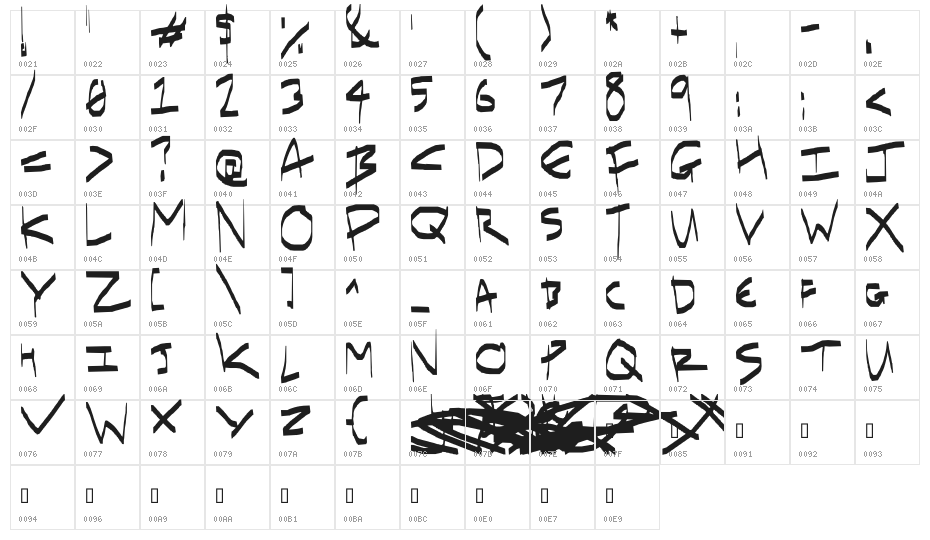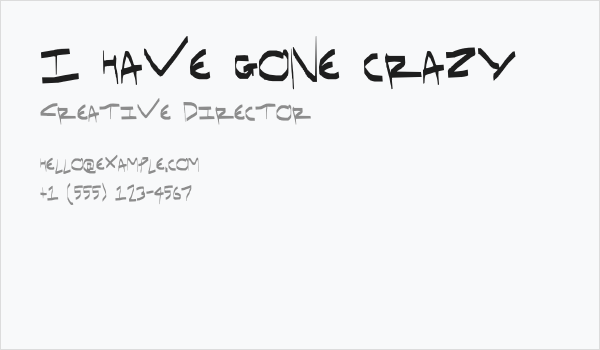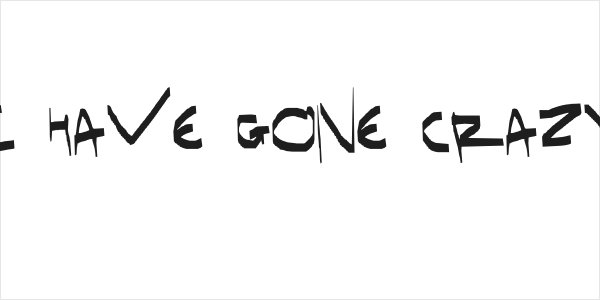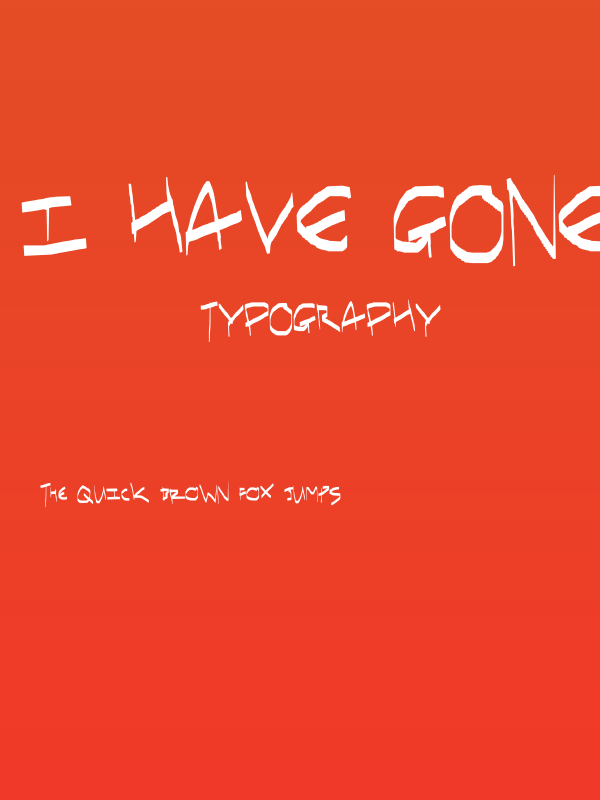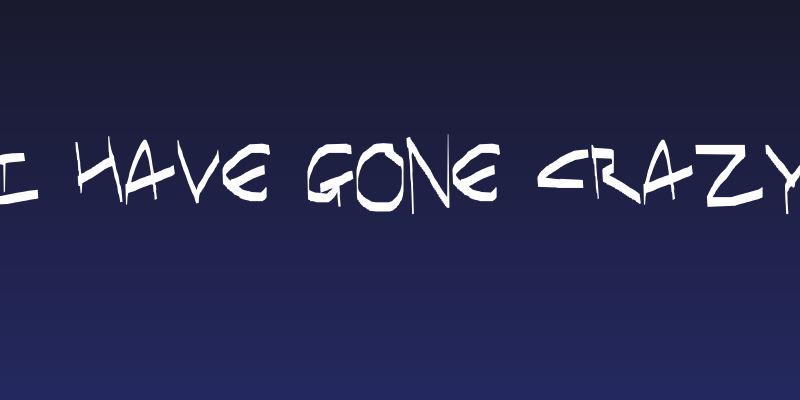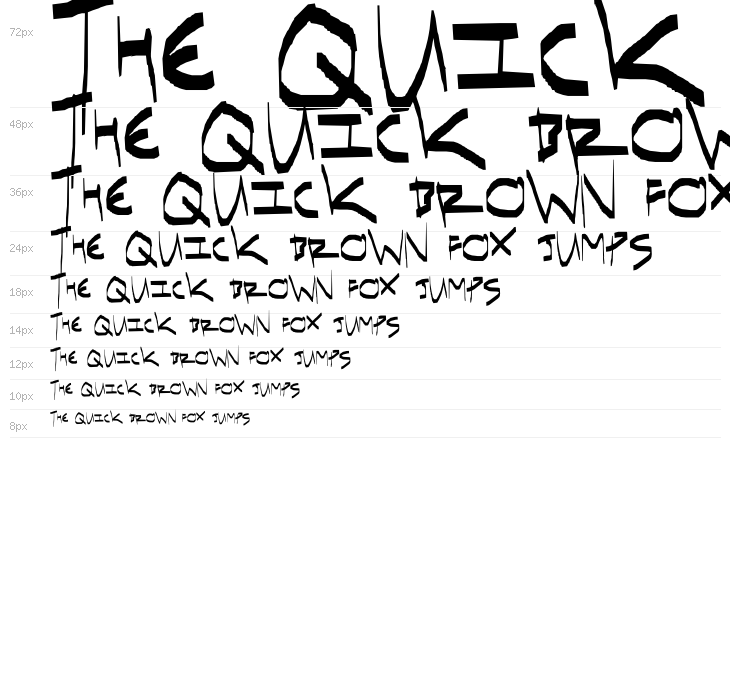
I have gone crazy Font
I have gone crazy Description
This font exhibits a bold and expressive style, characterized by its jagged and irregular strokes. Each letter appears as if it has been hand-drawn with a brush, giving it a raw and energetic feel. The uppercase and lowercase letters maintain a consistent height, while the numbers and special characters follow the same dynamic and edgy design. The overall appearance is chaotic yet structured, making it suitable for projects that require a strong visual impact. The font's unique style is perfect for creative and artistic endeavors, where a sense of individuality and boldness is desired.
Overall StyleModern, Artistic
Proposed ProjectsIdeal for album covers, graffiti art, posters, and edgy branding projects.